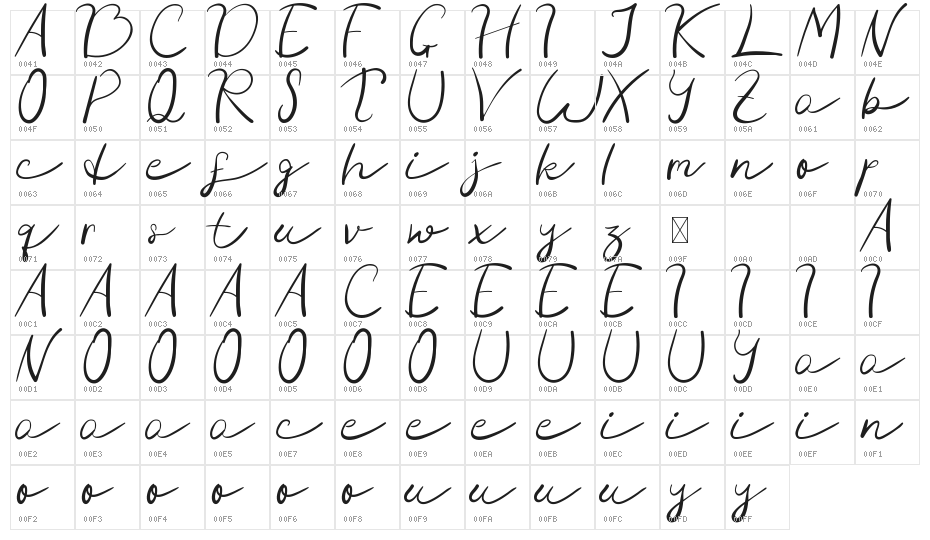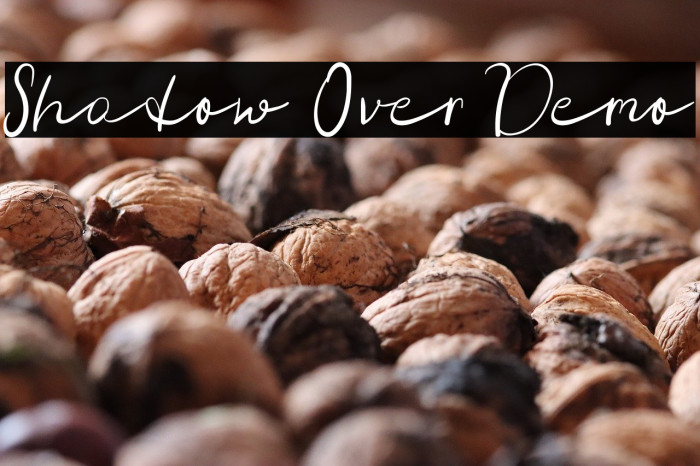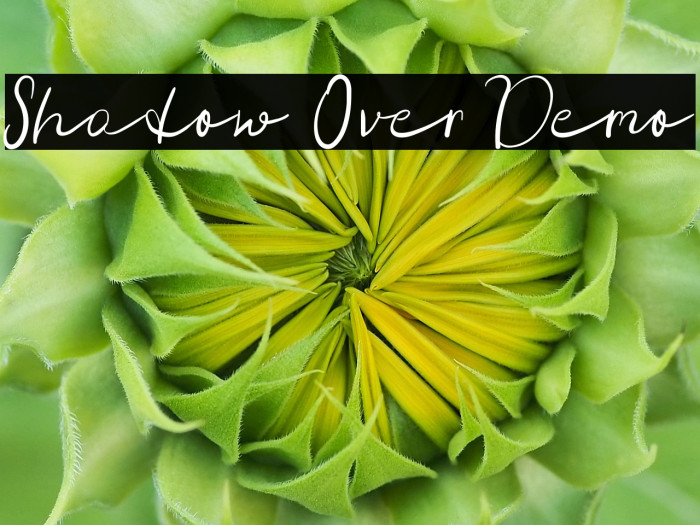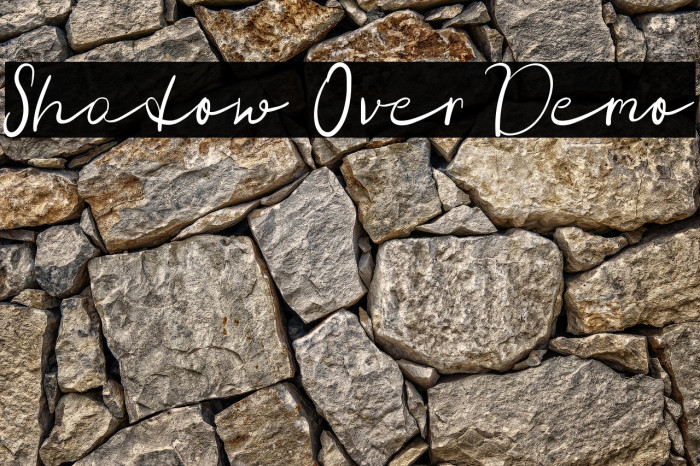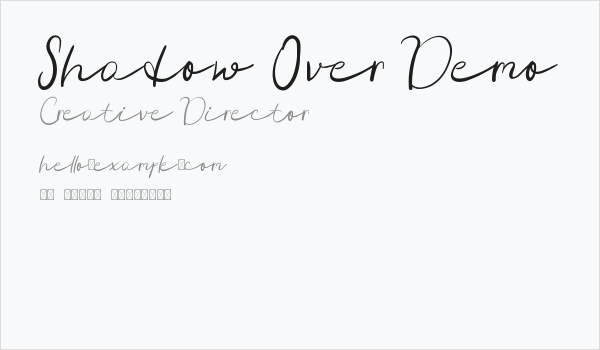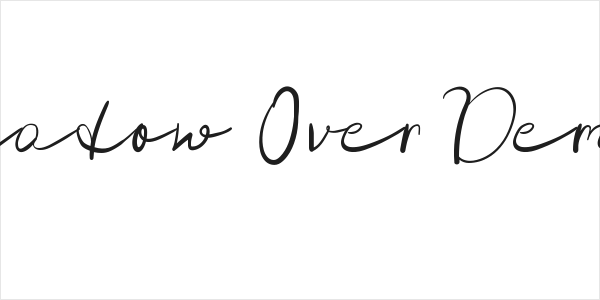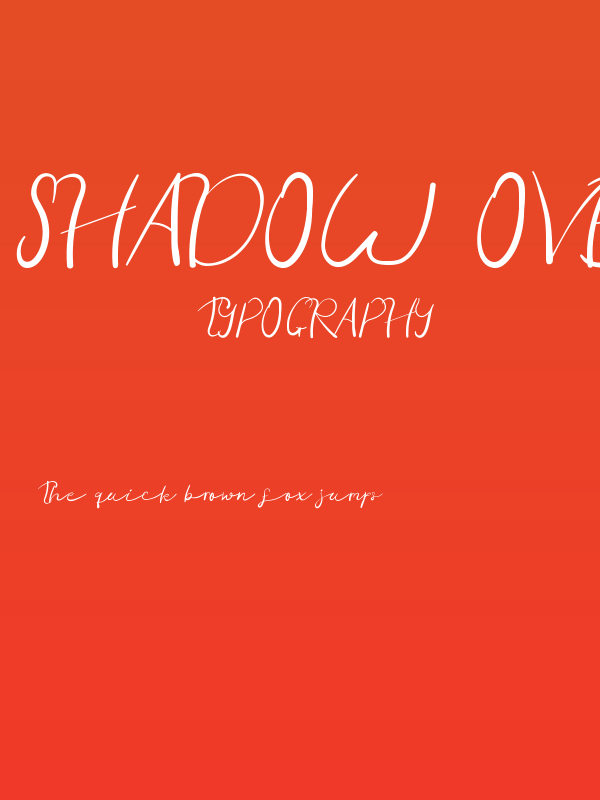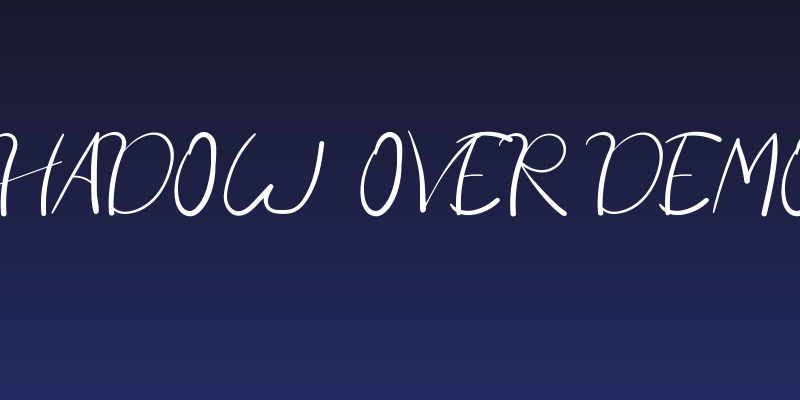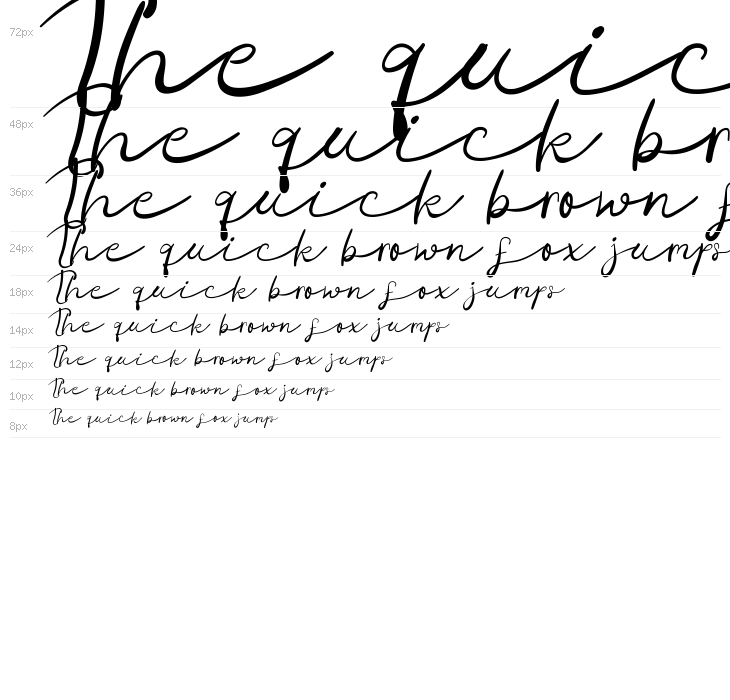
Shadow Over Demo Font
Shadow Over Demo Description
This font features a dynamic and fluid script style, characterized by its elegant and flowing letterforms. The strokes are smooth and connected, giving it a handwritten appearance. The uppercase letters are bold and slightly larger, while the lowercase letters maintain a consistent flow, enhancing readability. The font exudes a sense of creativity and personal touch, making it suitable for artistic and expressive projects. Its unique style is both modern and timeless, appealing to a wide range of design aesthetics.
| Use Case | Logos, Invitations, Artistic projects |
| Proposed Projects | Ideal for wedding invitations, greeting cards, logos, and branding materials that require a personal and artistic touch. |